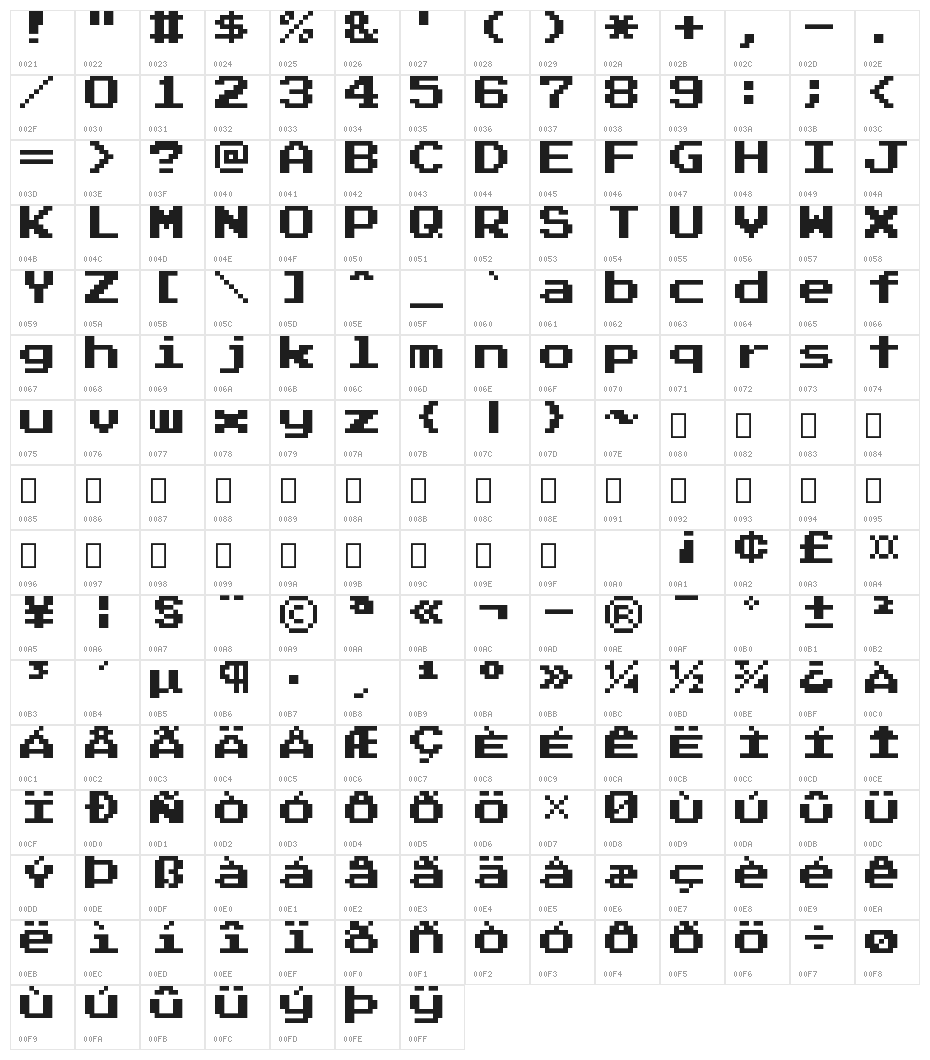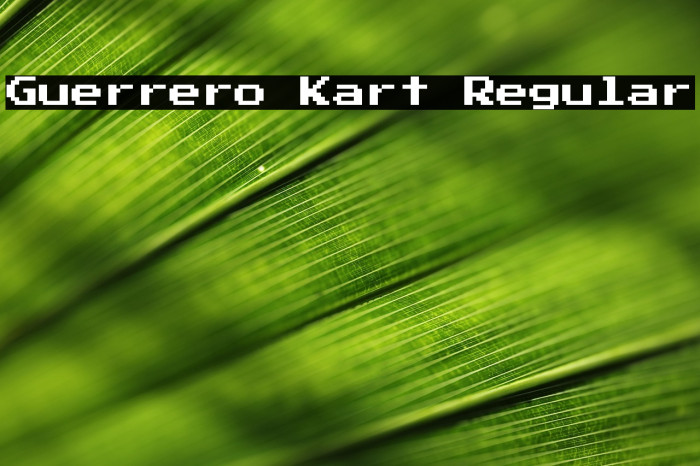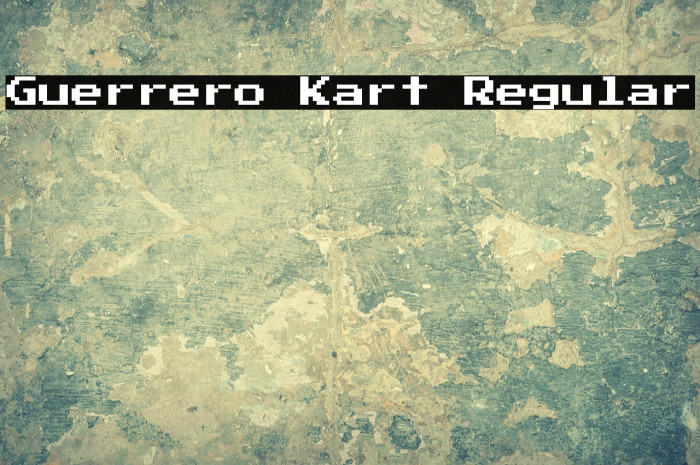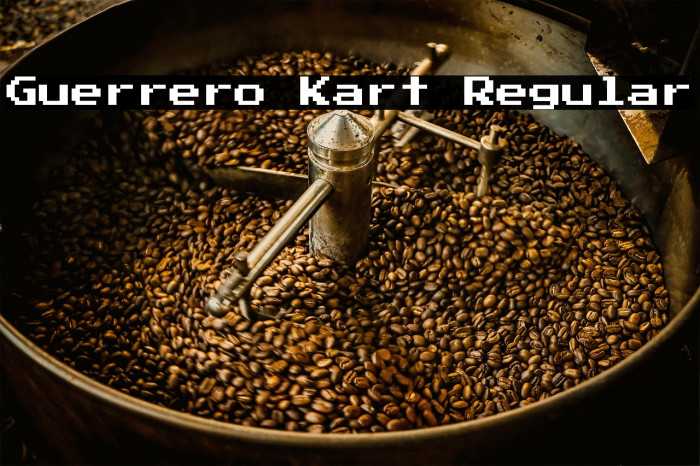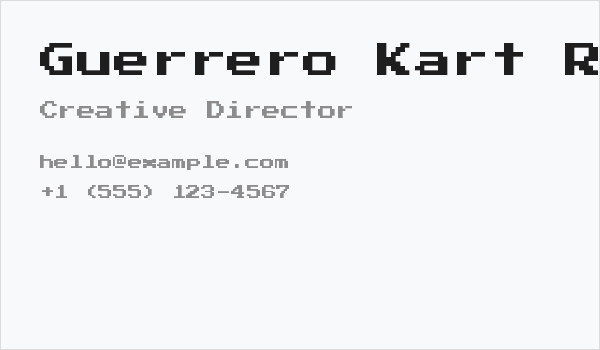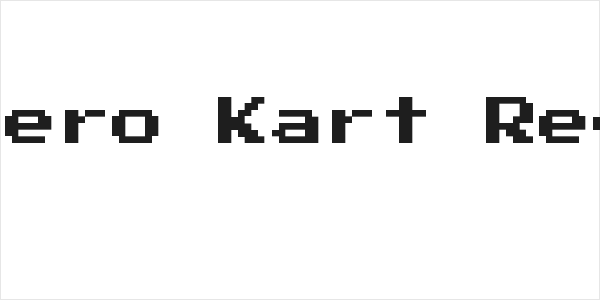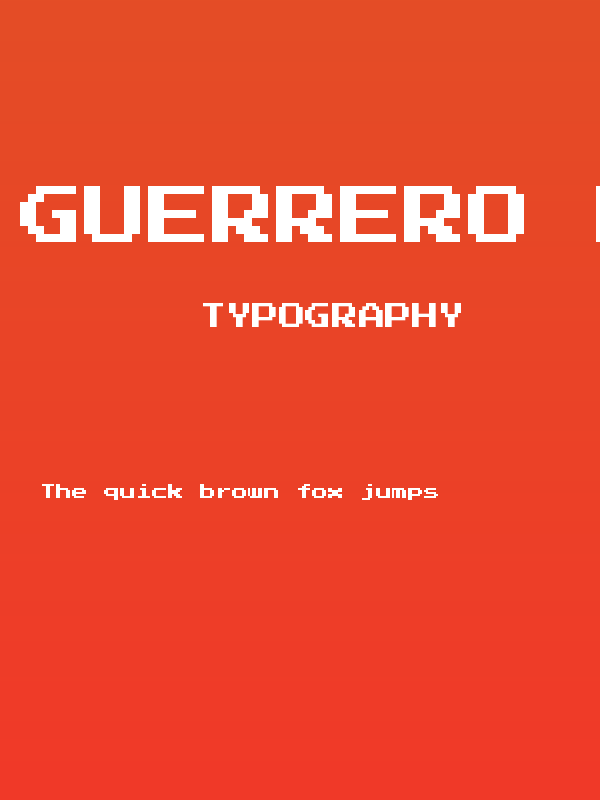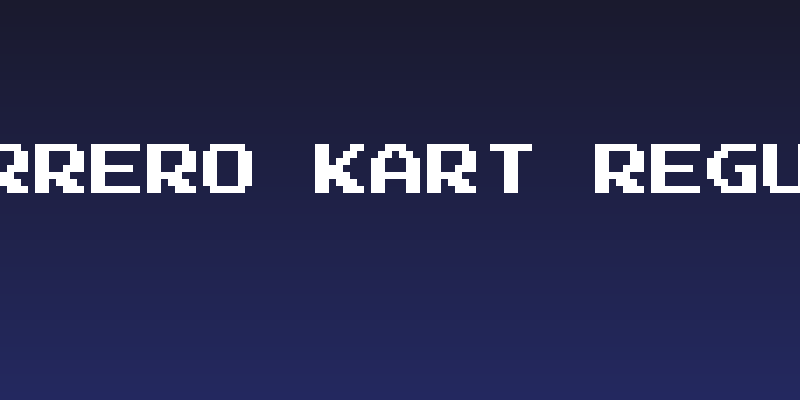
Guerrero Kart Regular Font
Guerrero Kart Regular Description
This font features a bold and dynamic style with a strong presence. The characters are designed with a sense of movement and energy, making it ideal for attention-grabbing headlines and titles. The uppercase letters are particularly striking, with sharp angles and a slightly condensed form that adds to their impact. The lowercase letters maintain the same energetic style, ensuring consistency across different text sizes. Numbers and special characters are crafted with the same attention to detail, ensuring they fit seamlessly with the alphabetic characters. Overall, this font exudes a modern and adventurous vibe, perfect for projects that require a bold statement.
| Proposed Projects | Ideal for use in headlines, posters, branding, and any project that requires a strong visual impact. |